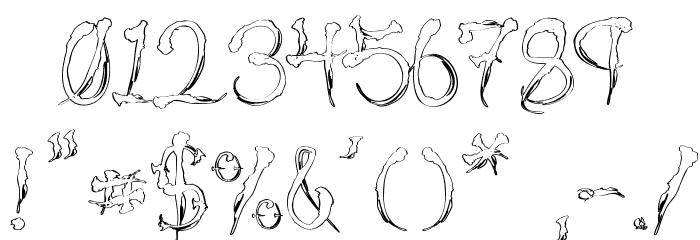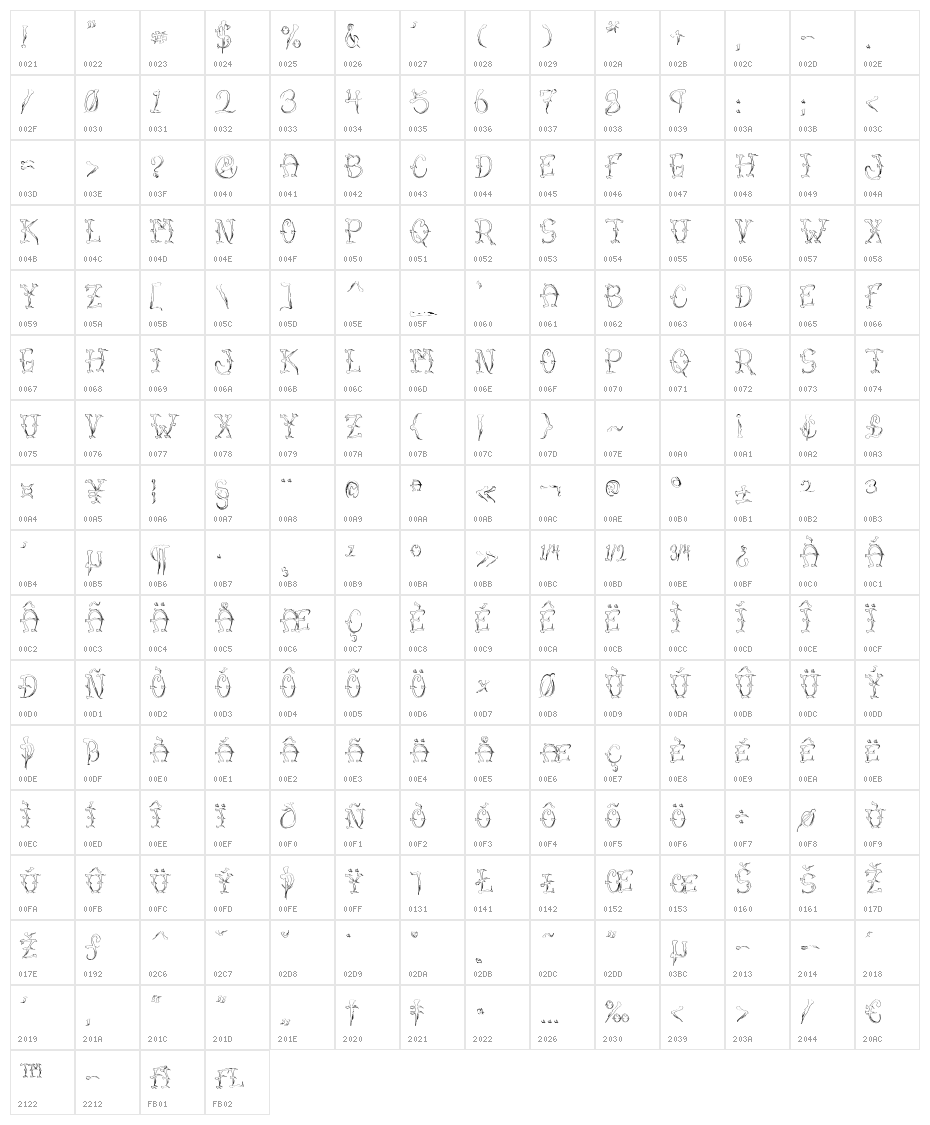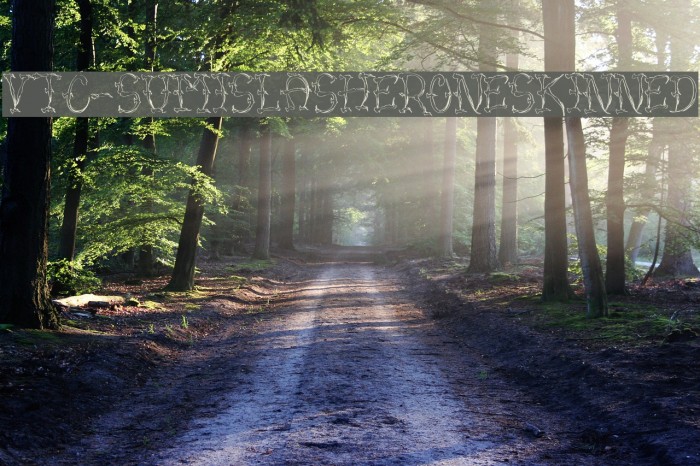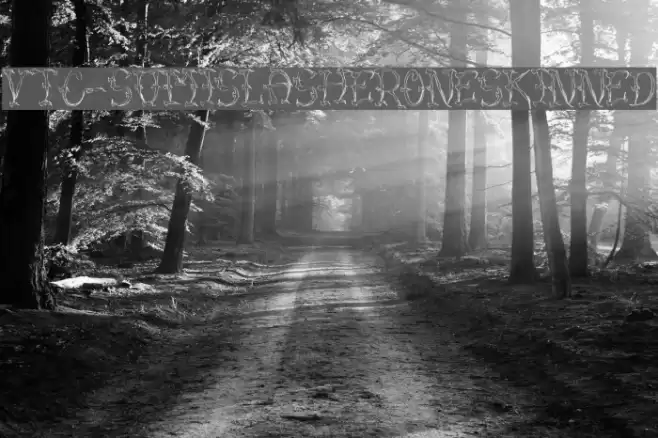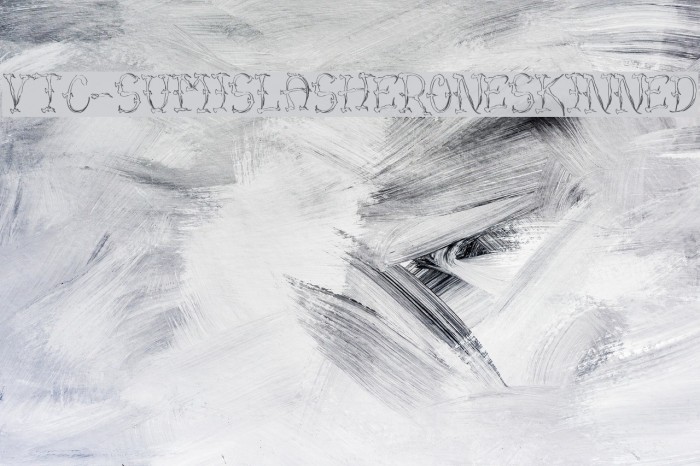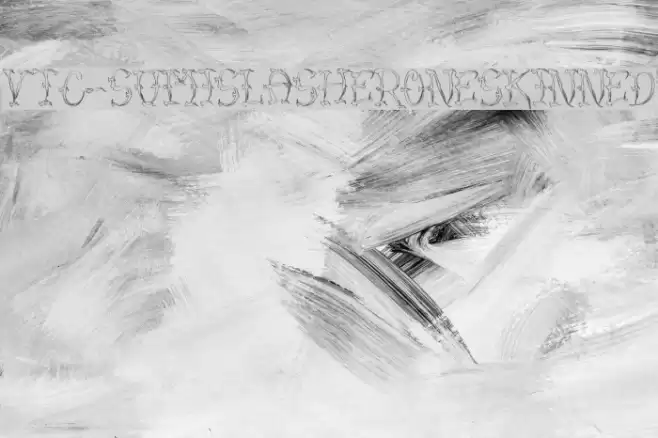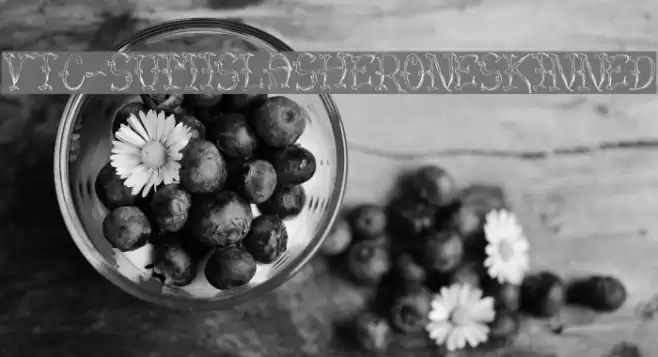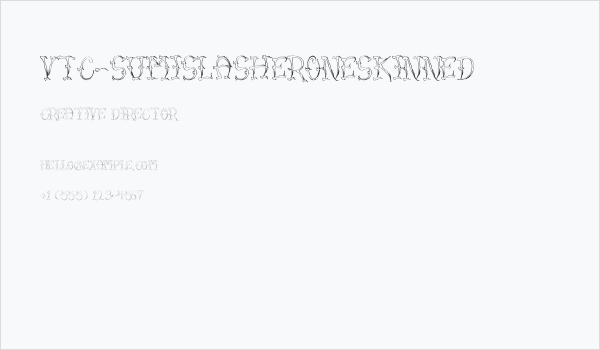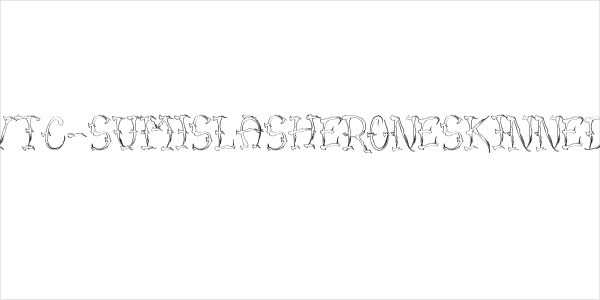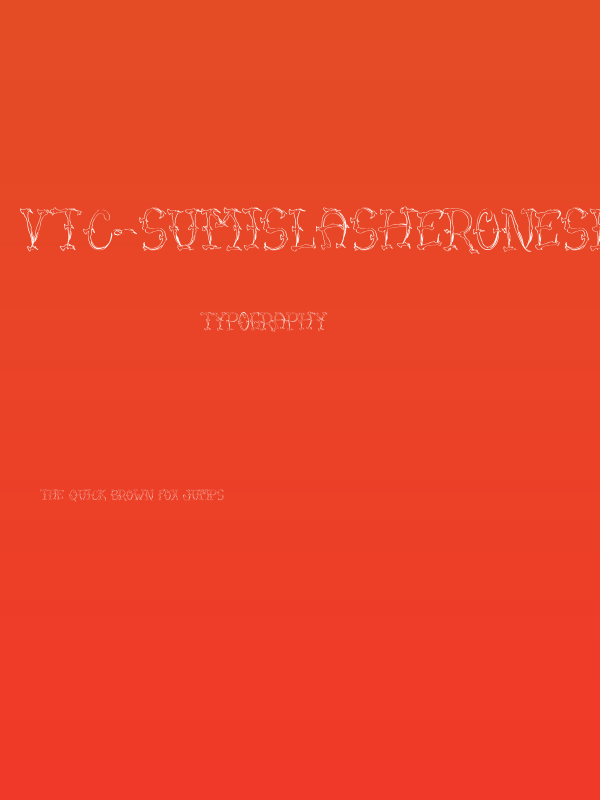
VTC-SumiSlasherOneSkinned Font
| Caso de uso | Logos, Headlines, Artistic projects |
| Projetos propostos | Ideal for use in creative projects such as album covers, posters, and graphic novels where a bold, artistic statement is desired. |